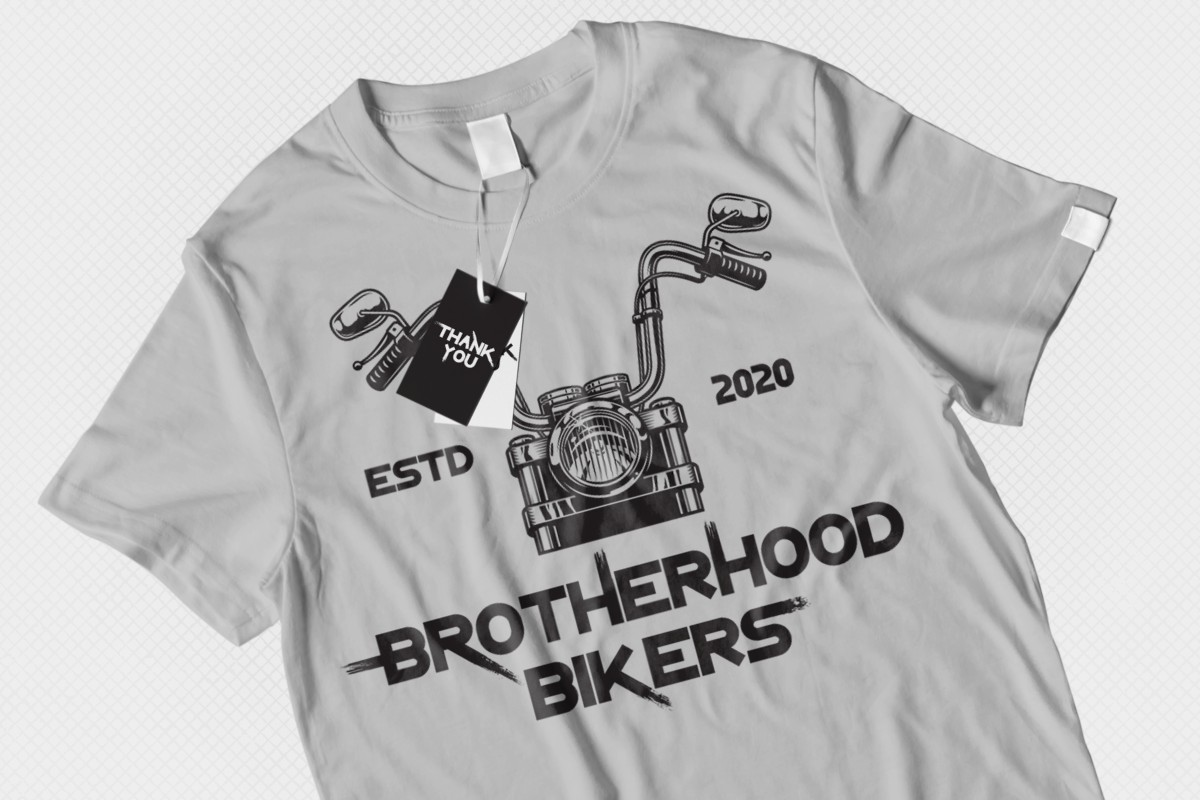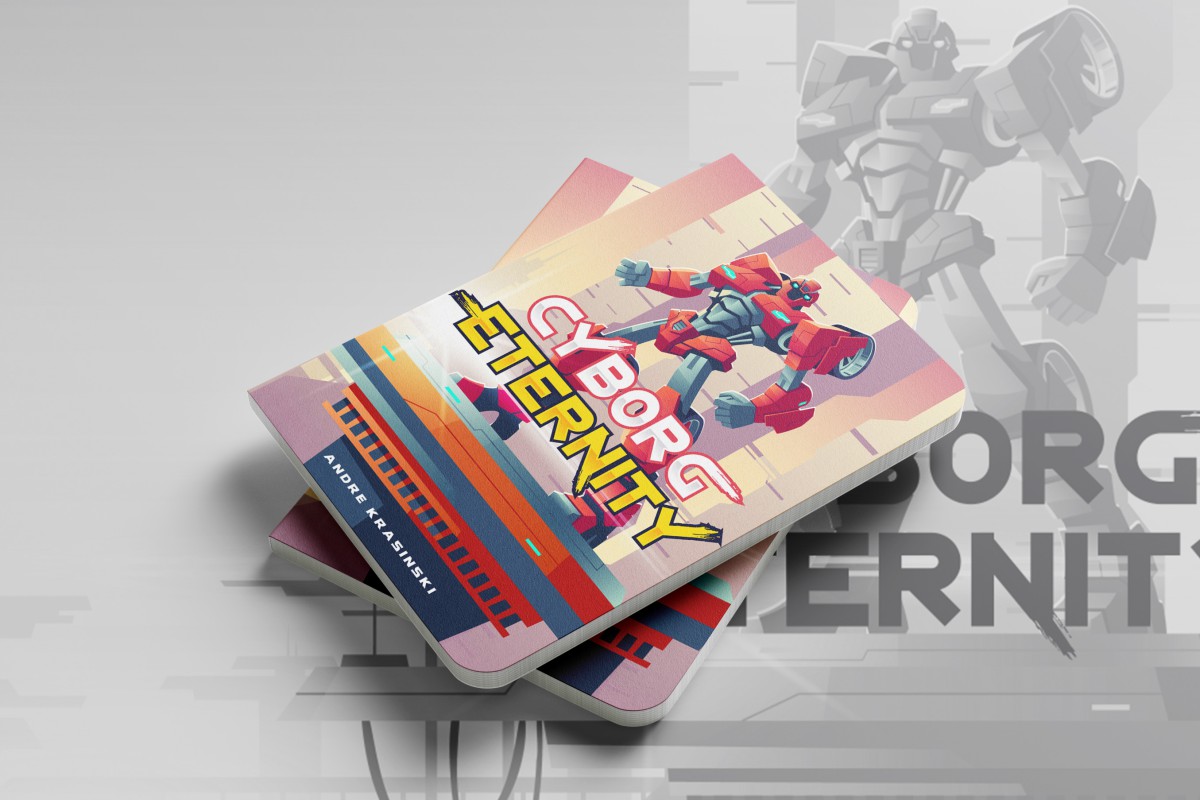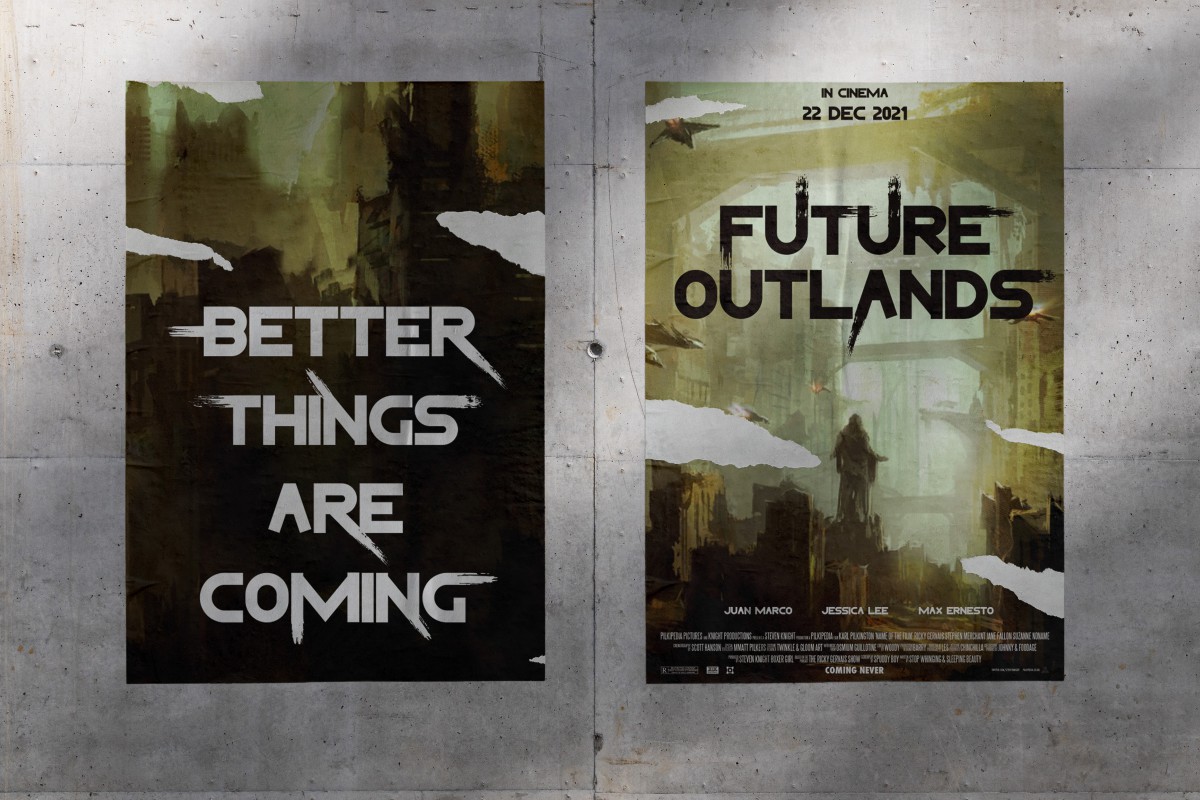
End Rush Font
End Rush Display Font
This is a display font with speed fire and gaming style effect. This modern and strong wide sans combined with fire edges texture will be great whether you’re using it for branding, digital designing, greeting card making, it will be perfect! Add this font to your creations and take your designs to the next level!